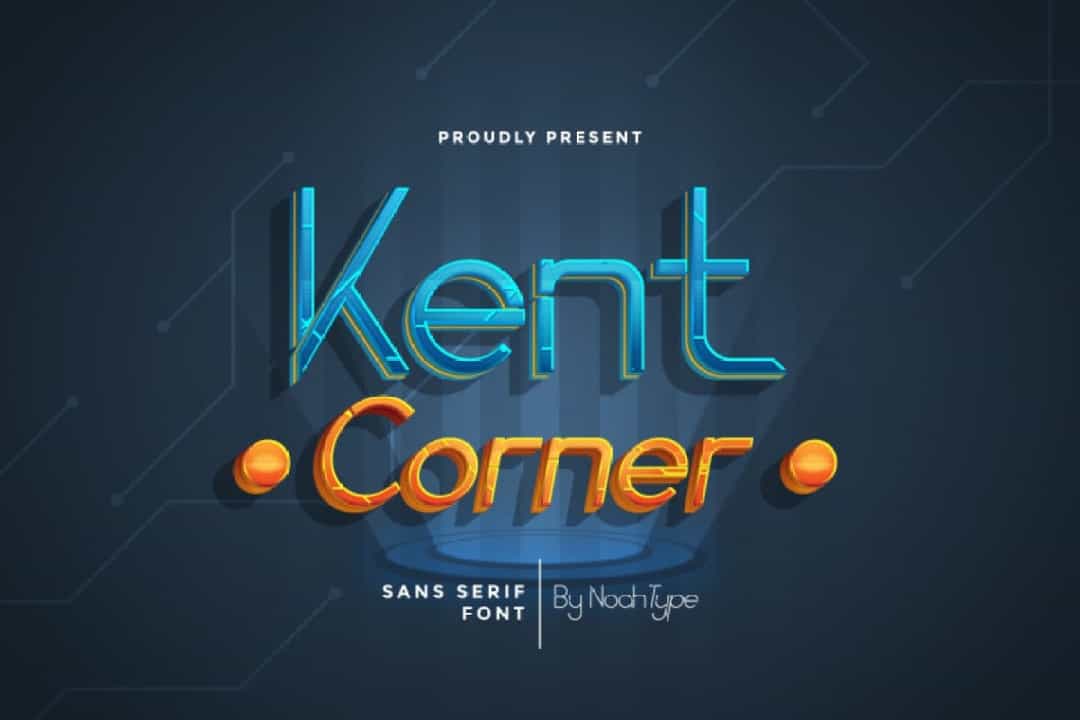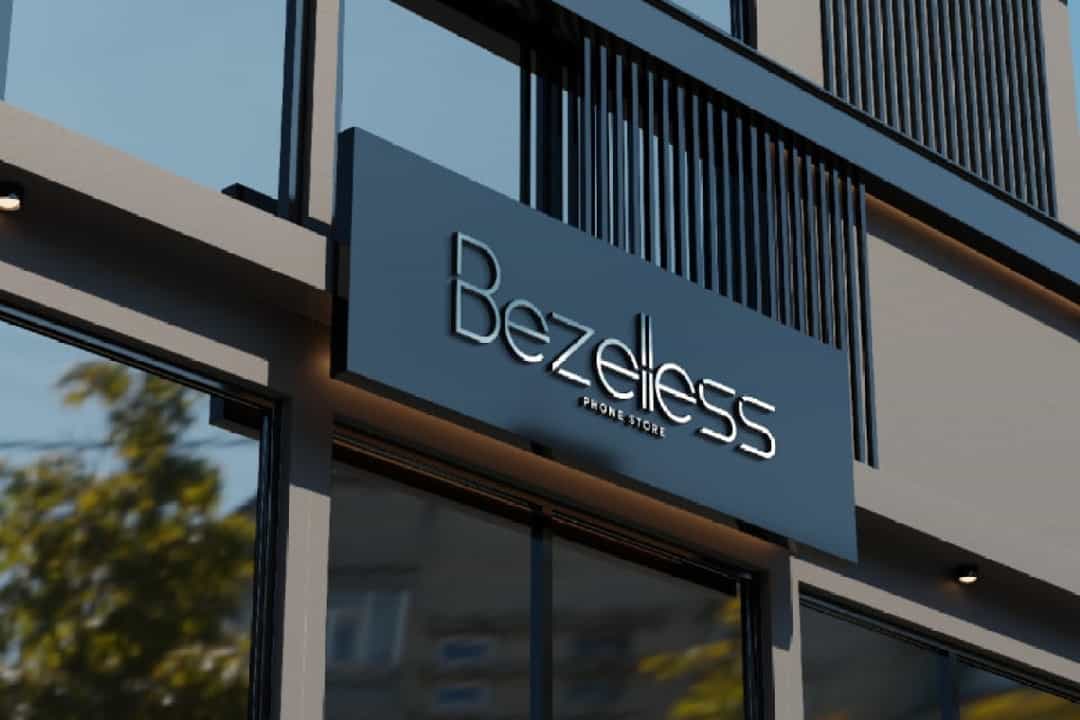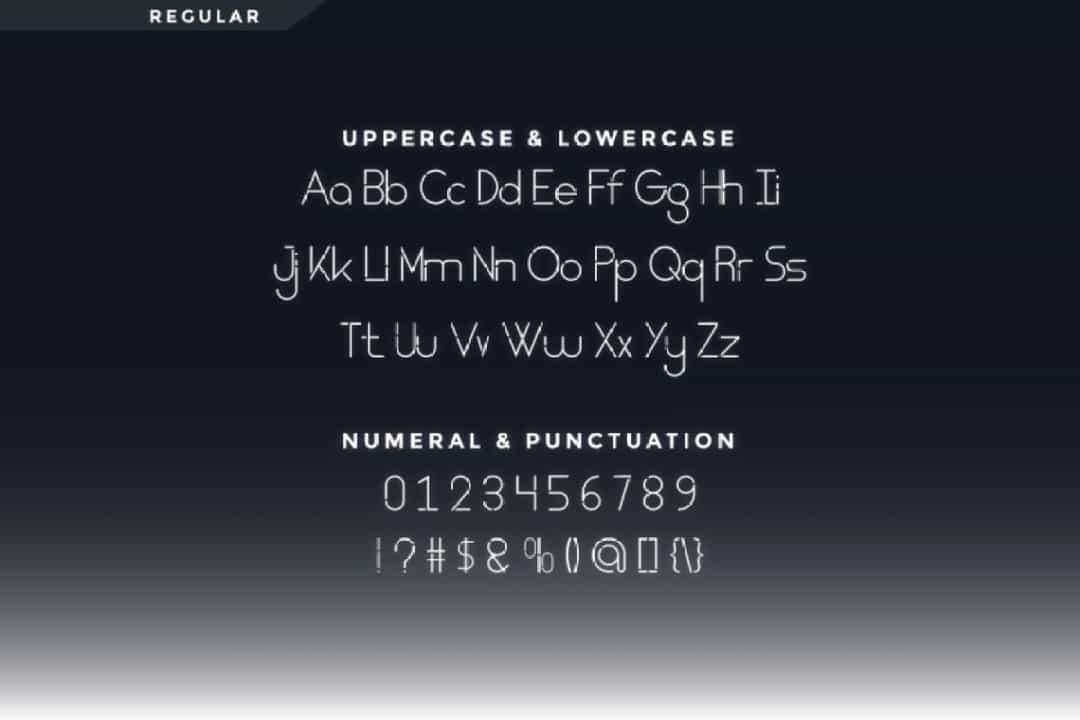
Kent Corner is a sans-serif display typeface with an eye-catching modern aesthetic, drawing inspiration from street art, techno and hip posters as well as its own distinct style that stands out. Perfect for games, technology events or spaceships.